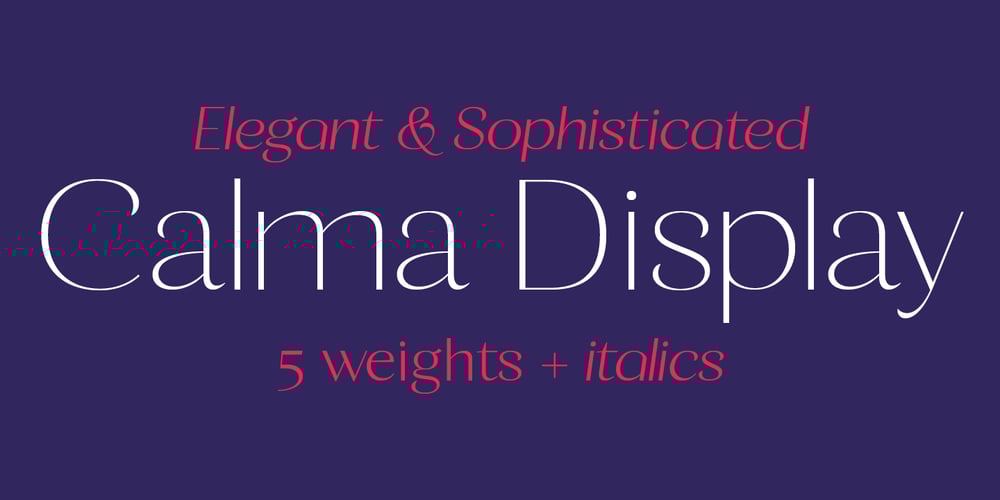
Calma Display Font Family was designed by João Miranda and published by Walking Fearless. Calma Display contains 10 styles and family package options. Calma Display is a very elegant font fitting perfectly in high-end environment, like perfumes & cosmetics, fashion, retail and magazines. It has unique terminals which enhances a beautiful and elegant personality to the typeface, being really useful for editorial purposes. It also has a great amount of lower and uppercase ligatures and an Art Nouveau alternate stylistic set to help you to create some differentiation throughout your projects.